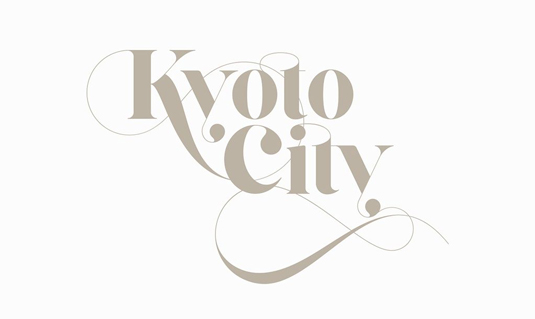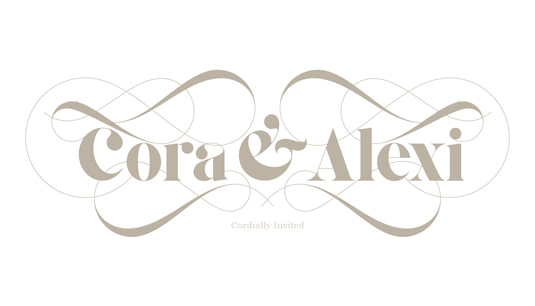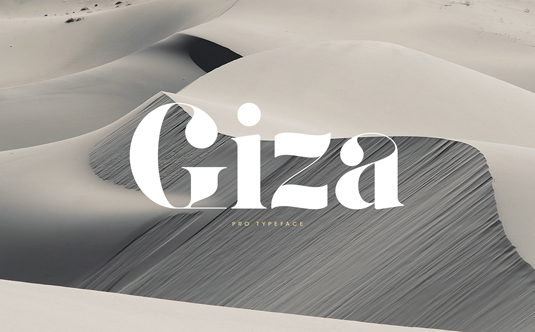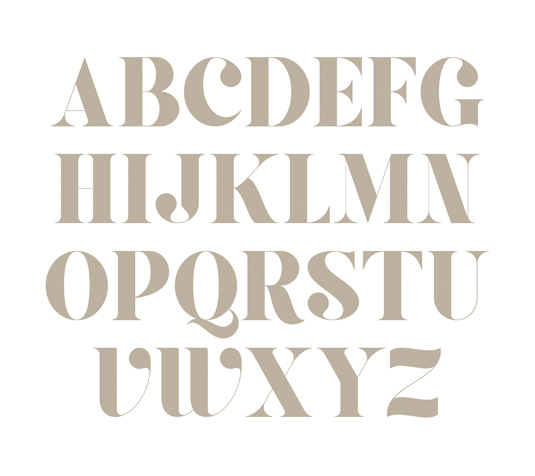
Font of the day: Giza Pro
Giza Pro by Anthony James
Manchester-based designer Anthony James is the man behind today's typeface of choice, Giza Pro. "It's a multilingual typeface to suit many application, editorials, weddings, etc," James comments on Behance.
"Most suitable as a display font, the main focus was to include as many indulgent aspects as possible, without compromising legibility. With smooth curves and subtle indentations, it's a very fashion conscious typeface."